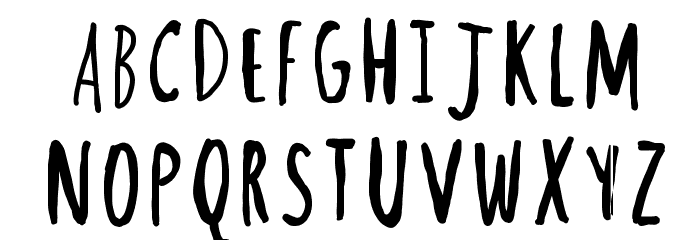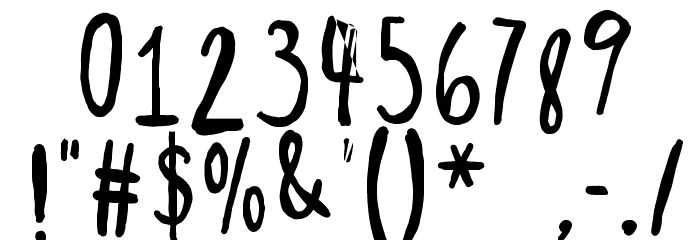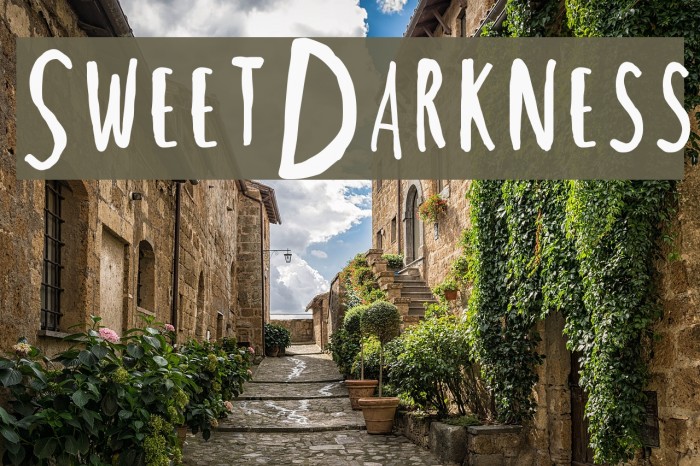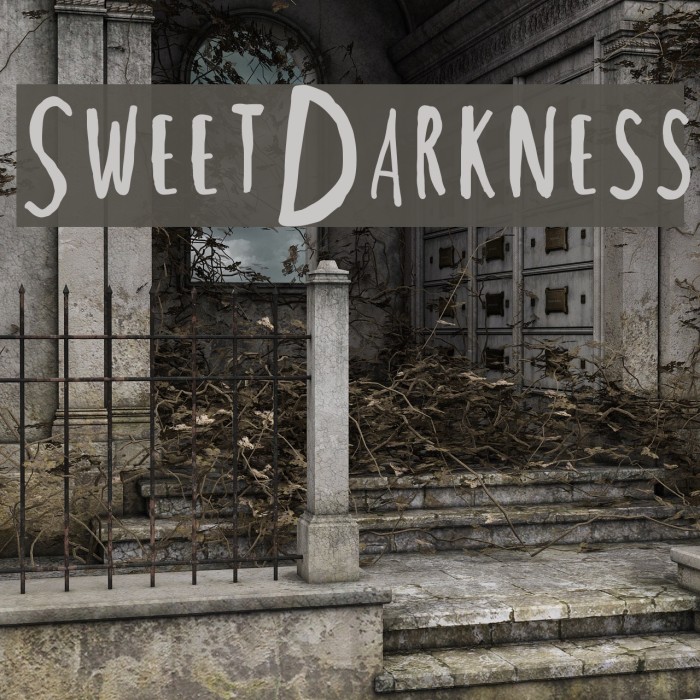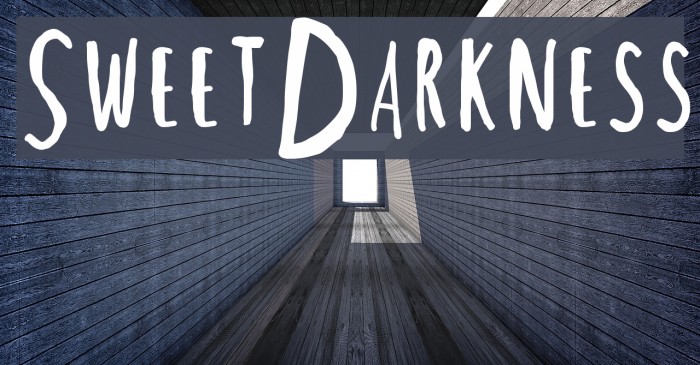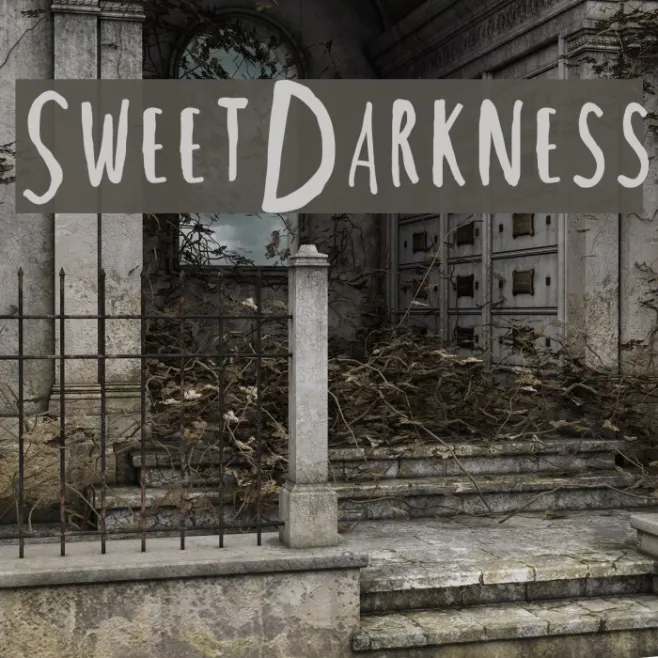
SweetDarkness Font
This font features a playful and energetic handwritten style, characterized by its irregular and dynamic strokes. The letters have a casual, informal appearance, with varying thickness that adds a sense of movement and personality. The uppercase and lowercase letters are distinct yet harmonious, maintaining a consistent flow throughout the alphabet. Numbers and special characters are crafted with the same lively spirit, making them suitable for creative and expressive designs. The overall aesthetic is bold and eye-catching, perfect for projects that require a touch of whimsy and individuality.
A playful, handwritten font with dynamic and irregular strokes.
- Proposed Projects: Ideal for greeting cards, children's books, playful branding, and creative posters.